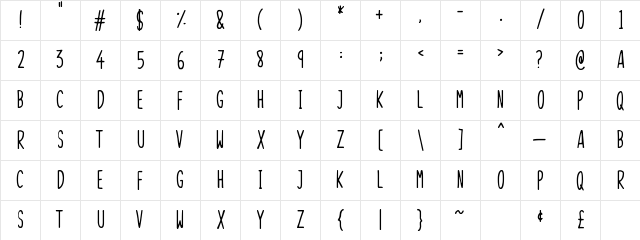
Skinny Things Regular
Skinny Things Family
Design Context for Skinny Things
Skinny Things is a composed and adaptable typeface that performs quietly and consistently across a wide range of design contexts. Its slender proportions lend an understated elegance to any composition.